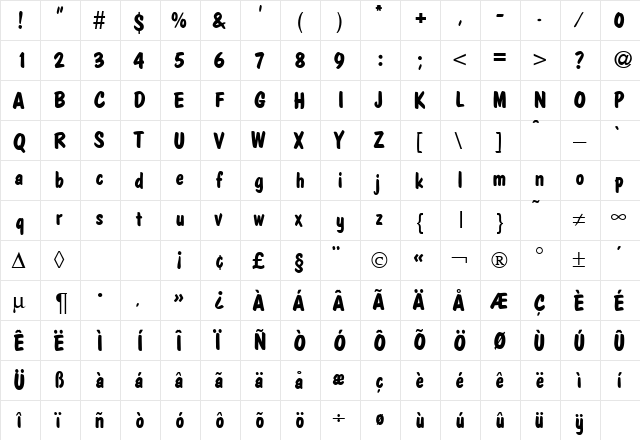
PolCasual Bold
Design Context for PolCasual Typeface
PolCasual is a composed and adaptable typeface that performs quietly and consistently across a wide range of design contexts. The heavy weight commands attention and anchors typographic hierarchies.